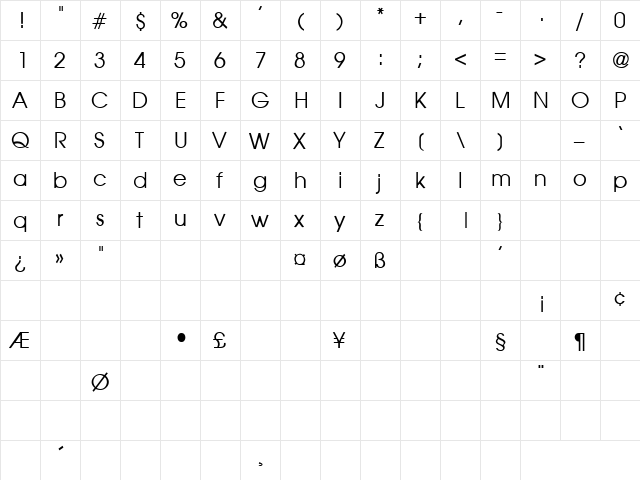
Confused 4 Regular Font Preview
Confused 4 Regular
Confused 4 Regular Font Details
Design Context for Confused 4 Typeface
Confused 4 offers clean, dependable letterforms without strong stylistic allegiance, making it a practical choice for designers who need flexibility.